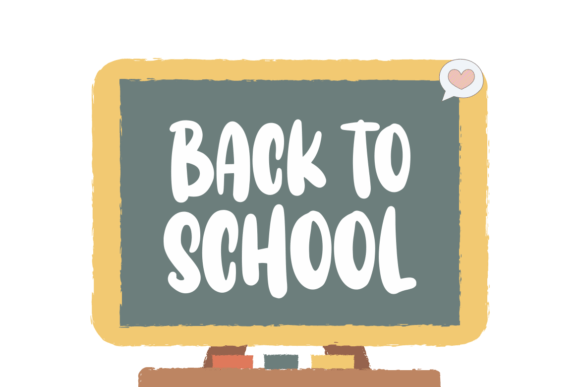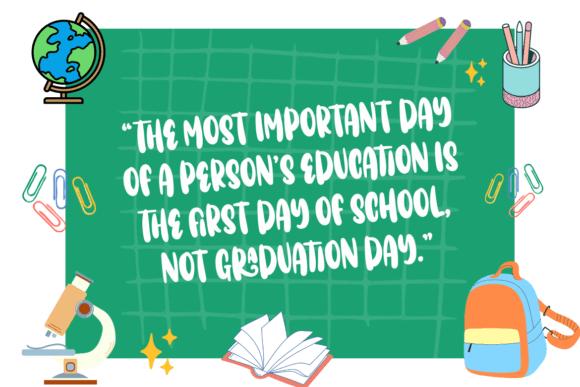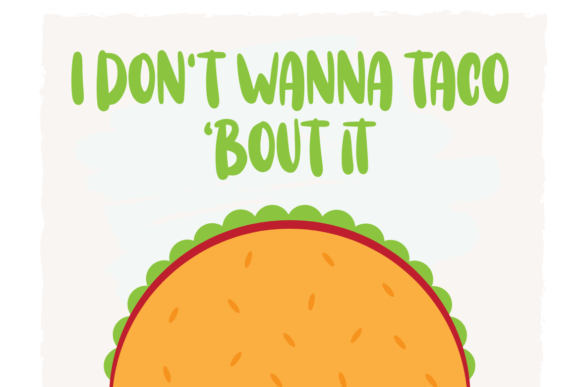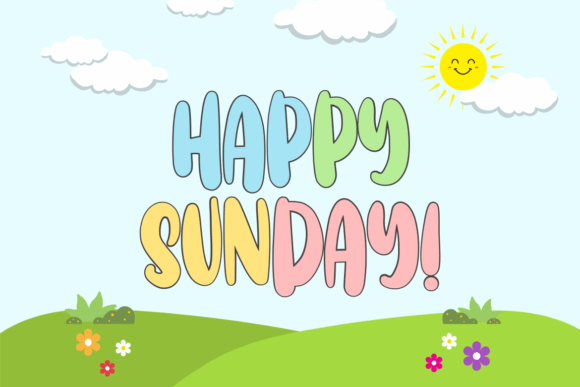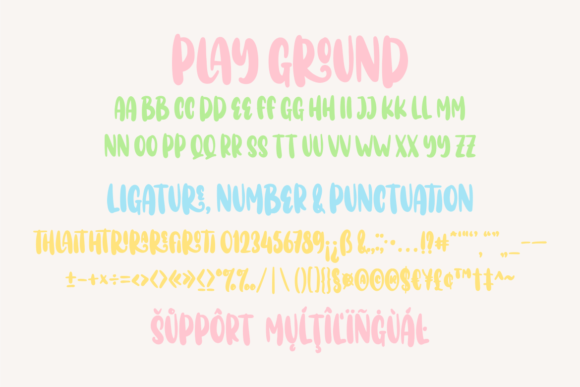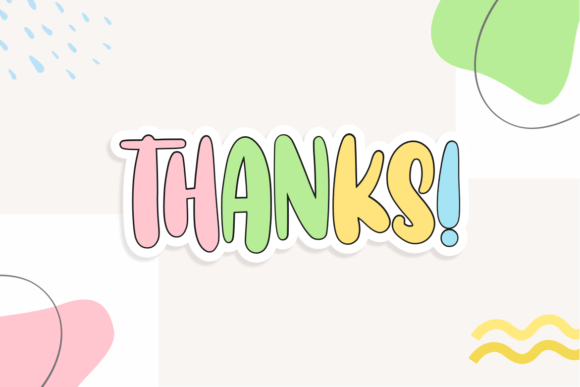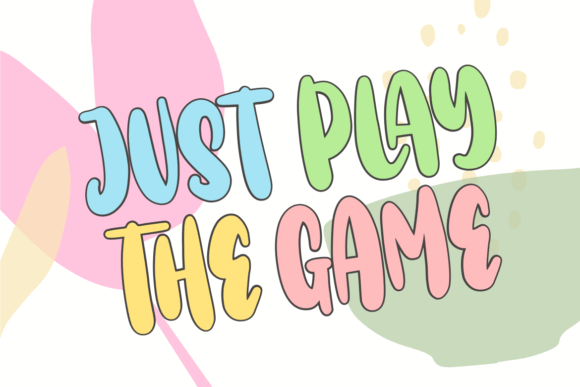
Playground Font
About Playground Font
Introducing Playground, a delightful and delicate handwritten display font designed to add a playful touch to a wide spectrum of creative applications. Whether you’re creating greeting cards, headlines, or any other design project, this font promises to infuse a sense of happiness into each of your creations!
The playful and delicate nature of Playground makes it a versatile choice for various design contexts. Its whimsical characters bring a sense of joy and lightness, making it suitable for projects that seek to convey a lighthearted and cheerful atmosphere.
From crafting warm and inviting greeting cards to designing attention-grabbing headlines, Playground is ready to be the creative element that elevates your work. Its handwritten style adds a personal touch, making your designs feel authentic and unique.
One notable feature of Playground is its PUA encoding, providing easy access to a plethora of amazing glyphs and ligatures. This feature enhances your design flexibility, allowing you to customize and experiment with various letter combinations to achieve the perfect look for your project.
Imagine using Playground on a festive greeting card, where its playful characters enhance the celebratory mood. Picture it in bold headlines, making your message stand out with a touch of whimsy. Envision it on a packaging design, adding a delightful and handmade feel to your product.
In summary, Playground is not just a font; it’s a creative tool that brings happiness to your designs. Its playful and delicate style, combined with PUA encoding for added versatility, makes it a delightful addition to any designer’s toolkit. So, let Playground be the source of joy in your creative endeavors, adding a charming and handwritten flair to all your projects!